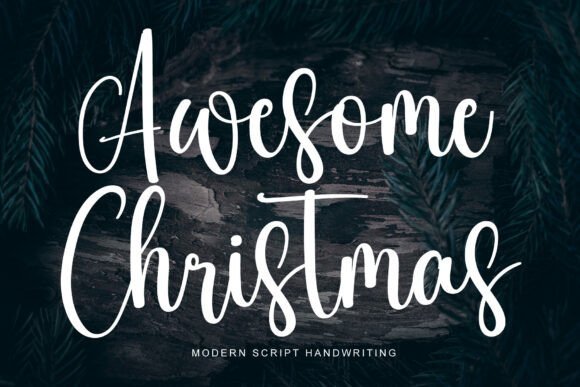
Deck the Halls with Font-tastic Flair
As I sat at my desk, surrounded by twinkling lights and the warm scent of pine, I felt the creative juices flowing. It was the holiday season, and I was itching to get into the festive spirit. I reached for my trusty font collection, searching for the perfect typeface to capture the magic of Christmas. And then, I stumbled upon it – Awesome Christmas Font, a merry and whimsical typeface that added an instant touch of enchantment to my designs.
With its decorative elements and playful flair, Awesome Christmas Font is the perfect companion for any holiday project. Whether you’re crafting greeting cards, gift tags, or festive posters, this font brings a cheerful and nostalgic ambiance to your words. As a designer, I can attest to the value of having a versatile and festive font like Awesome Christmas Font in your arsenal – it’s a game-changer for any holiday-themed project.
Awesome Christmas Font Key Features
- Unique Characteristics: The font features a playful and festive design with intricate details, making it perfect for holiday-themed projects.
Designer Review: Awesome Christmas Font
Overall, I think “Awesome Christmas Font” has some nice touches, but it falls short in certain areas.
- The font’s festive feel is spot on – it captures the holiday spirit perfectly.
- The bold, playful strokes are a great addition, adding a fun touch to any design.
- The font’s versatility allows for a wide range of applications, from greeting cards to social media graphics.
- The font’s character set is limited, which might be a concern for those looking to use it for longer texts or more complex designs.
- The font’s thickness and line quality can be inconsistent, which might affect its overall appearance.
“Awesome Christmas Font” has a lot of potential, but its limitations hold it back from being a truly top-notch font. While it’s perfect for quick holiday designs or one-off projects, it might not be the best choice for more extensive or professional work.
The Awesome Christmas Font is perfect for creating festive and fun designs for holiday-themed projects. Use it for:
- Holiday cards and invitations
- Seasonal social media graphics
- Christmas party decorations and signage
- Winter-themed marketing materials
Remember to experiment with different font sizes, styles, and colors to get the most out of this fun and festive font!